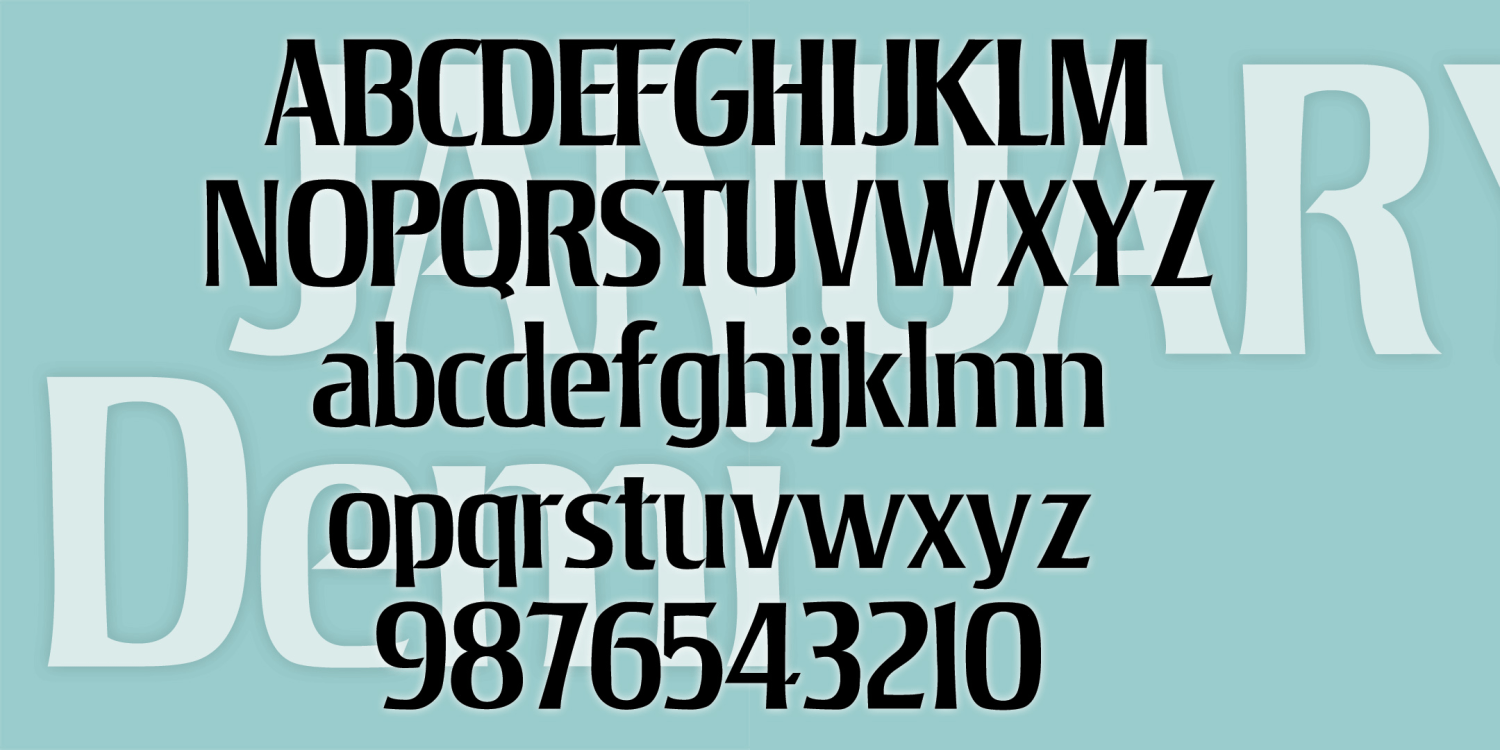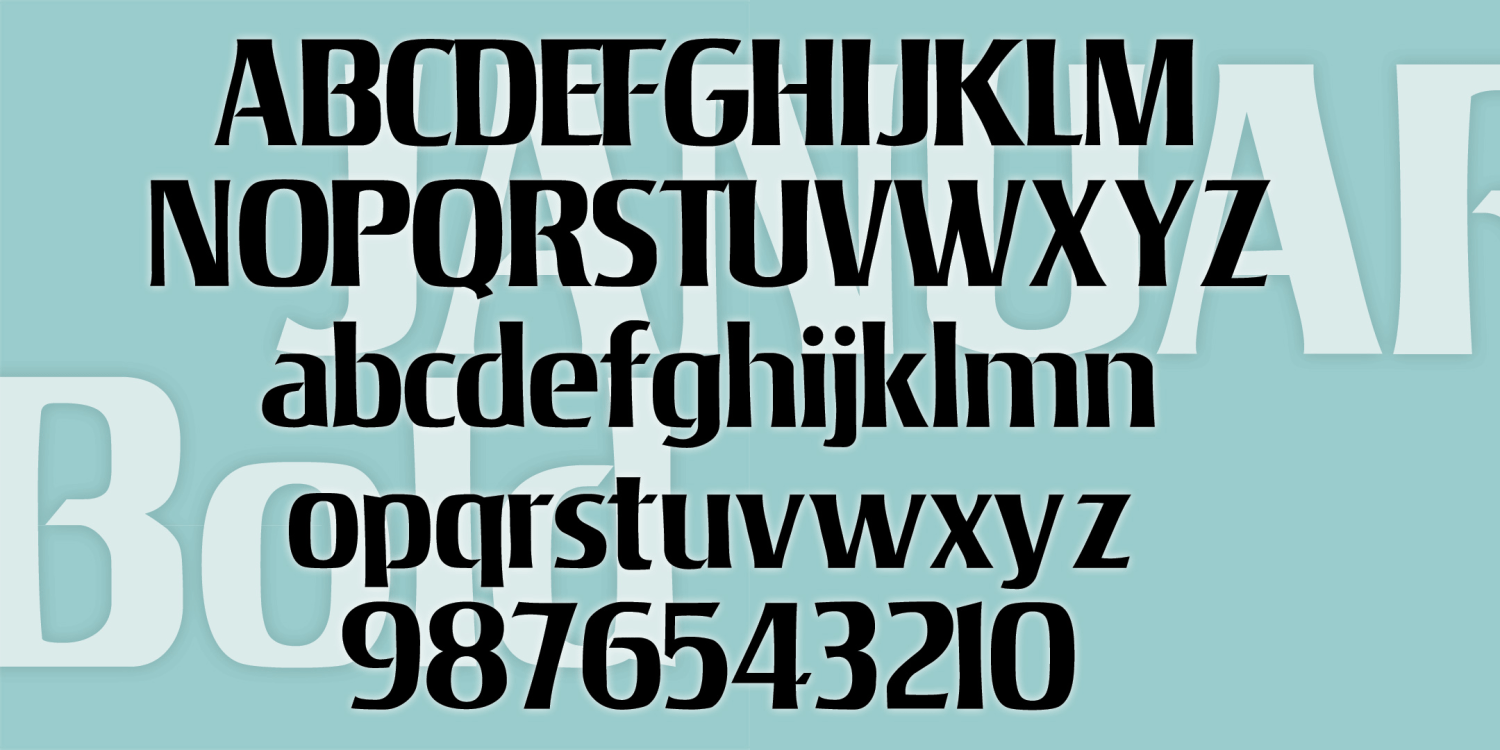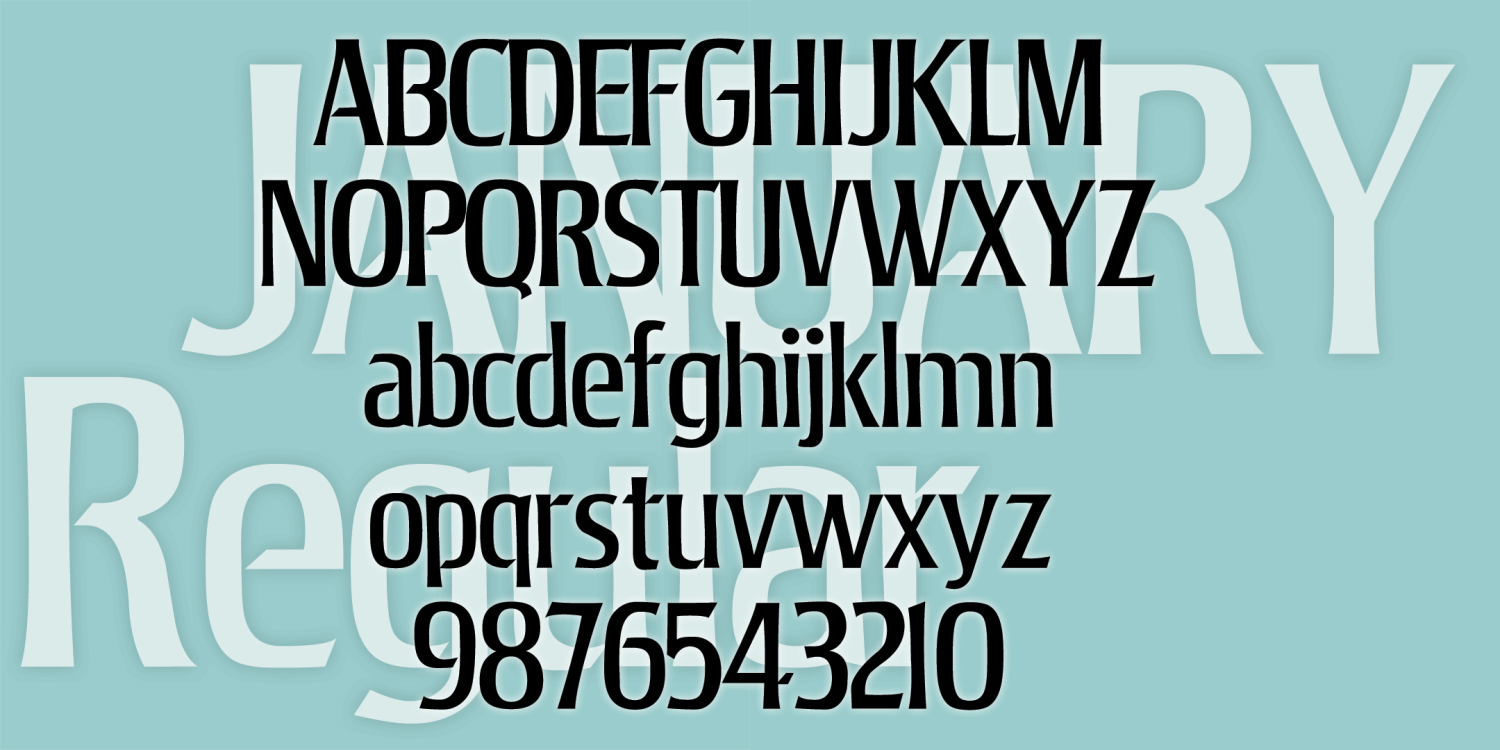
January
About January
JANUARY was inspired by the analog font Jana. The concave shapes of most characters and the notches on many give this sans-serif an elegant sparkle. There’s another digital version of Jana out there, but mine has been entirely redrawn and is very…